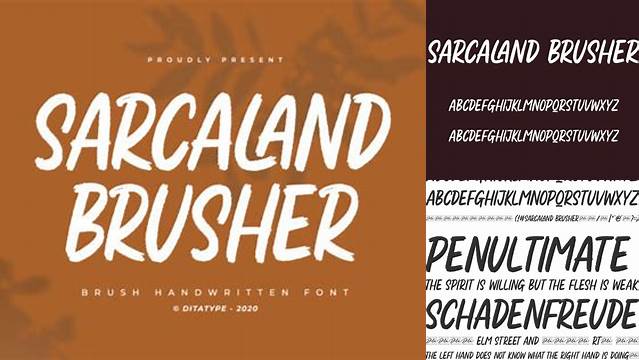
Sarcaland Brusher Font Free: Your Guide To A Stylish Brush Font
Hey guys! Today, we're diving headfirst into the world of typography and uncovering a real gem: the Sarcaland Brusher font free. This isn't just any font; it's a versatile, stylish brush font that can inject personality and flair into any design project. Whether you're a seasoned graphic designer, a budding entrepreneur, or just someone who loves to get creative, understanding and utilizing the Sarcaland Brusher font can be a game-changer. Let's break down everything you need to know, from its key features and where to find it, to how to use it effectively in your projects. We'll cover all the bases so you can start crafting stunning visuals in no time!
What is the Sarcaland Brusher Font?
So, what exactly makes the Sarcaland Brusher font so special? Well, at its core, it's a brush font, meaning it mimics the look of hand-painted or hand-lettered strokes. This gives it a raw, authentic, and often energetic feel that's perfect for projects that need a touch of personality. Think of it as the digital equivalent of picking up a paintbrush and letting loose on a canvas. The Sarcaland Brusher font captures that same spirit, but with the convenience and flexibility of a digital font. It's designed to be bold and impactful, making it ideal for headlines, titles, logos, and any design element where you want to grab attention. The font typically features a slightly rough or textured appearance, which adds to its handmade charm and prevents it from looking overly polished or generic. This distinct characteristic allows it to stand out from the crowd of more traditional fonts, lending a unique aesthetic to your designs. When you use the Sarcaland Brusher font, you're essentially bringing a handcrafted feel to your digital projects, making them feel more personal and engaging. Its versatility means it can be used in a wide range of applications, from websites and social media graphics to print materials like posters and flyers.
One of the main advantages of using a brush font like Sarcaland Brusher is its ability to convey a sense of creativity and artistry. It's a great choice if you want to evoke emotions or connect with your audience on a more personal level. Whether you're working on a branding project for a small business, creating promotional materials for an event, or just experimenting with some personal art, the Sarcaland Brusher font free download can become a valuable asset. The key lies in choosing the right context and ensuring that the font complements your overall design. When used correctly, it can elevate your designs and leave a lasting impression on your audience. It’s important to remember that using the right font can significantly influence how your message is received. By choosing a font like Sarcaland Brusher, you’re not just selecting a typeface; you’re also choosing a style that speaks volumes.
Let's delve into the nitty-gritty of what makes the Sarcaland Brusher font so appealing. First off, its hand-drawn aesthetic is a major draw. This isn't a perfectly symmetrical or mechanically produced font; it has the imperfections and slight variations that give it an authentic, human touch. This unique characteristic is what makes it stand out in a sea of more generic fonts. The textured appearance of the strokes adds to its visual appeal, creating a tactile sensation that pulls the viewer in. It’s as if each letter has its own story to tell. The font often features a bold weight, ensuring that it commands attention. It's designed to be seen and read clearly, even at larger sizes, making it ideal for headlines, titles, and other prominent text elements. This boldness helps to immediately capture the eye, making your message pop. The Sarcaland Brusher font also offers a high degree of readability. Despite its brush-stroke style, the letters are designed to be easily recognizable. This balance is essential to ensuring that the font is not only visually appealing but also functional. You want people to be able to read what you're writing without a struggle.
Another notable feature is its versatility. While it works exceptionally well for headlines and titles, the Sarcaland Brusher font can also be adapted for shorter blocks of text, depending on the context. It is perfect for a variety of design projects, from logos and branding to social media posts and website graphics. Whether you are working on a project that needs a touch of casual elegance, or an informal feel, this font delivers. It also typically includes a variety of characters and glyphs, providing flexibility in creating diverse designs. This often includes alternate letters, ligatures, and special characters. The inclusion of these extras increases the font's expressive capabilities, allowing designers to customize and refine the final look of their work. This level of customization makes it suitable for almost any design need. These elements are often included in a well-designed brush font to enhance the overall design and creative possibilities. These elements enhance the overall design and creative possibilities. Remember, good design is all about attention to detail, and the Sarcaland Brusher font allows you to focus on these small refinements.
How to Use the Sarcaland Brusher Font Effectively
Now, let's get down to the practical stuff: how to use the Sarcaland Brusher font effectively. First off, consider the context. This font isn’t a one-size-fits-all solution. It's best suited for projects that benefit from a casual, handcrafted look. It's perfect for things like logos, headers, social media graphics, event posters, and any design that needs to stand out with a touch of personality. Think about your audience and the message you want to convey. This is where the impact of the Sarcaland Brusher font comes into play. It creates a specific style, setting the tone and atmosphere for your project. A good tip is to make use of a style guide and maintain consistency throughout your design process. The font’s bold style and character make it ideal for headers and titles. It can add emphasis, and it adds a visually interesting focal point. Choose the font size wisely. It works best when it's large enough to be easily readable. Avoid using it for large blocks of text, as its decorative nature can make it difficult to read at smaller sizes. You should always prioritize readability.
When pairing it with other fonts, find a good balance. Pair the Sarcaland Brusher font with a more neutral, clean sans-serif or serif font for body text. This contrast will create visual interest and ensure that your content is easily readable. The contrast between a bold, handwritten font and a clear, simple font highlights the beauty of both. Think about the color palette. The font's style can easily be integrated into the overall aesthetic of a design. It can work perfectly with vibrant colors, pastels, or even monochrome schemes. Also, keep in mind spacing and kerning. Ensure your text is legible by adjusting the letter spacing and kerning to suit the font’s specific characteristics. A good rule of thumb is to keep the spacing consistent to avoid the text appearing too cluttered. Finally, always experiment with different applications. Try out different layouts and design elements to see how the Sarcaland Brusher font works best for your project. The best way to learn is by doing. The ability to download the Sarcaland Brusher font gives you the freedom to try out different design concepts without making significant investments. The more you practice, the better you will understand this font.
Alright, that's a wrap! Hopefully, you’ve got a great grasp of the Sarcaland Brusher font free, including its key features, how to find it, and how to use it effectively. Remember, the key to successful design is experimenting and finding what works best for your specific needs. So go out there, download the font, and start creating some awesome visuals. Don't be afraid to get creative and have fun with it! With a little practice and some creativity, you'll be amazed at what you can achieve. So go out there, download the font, and start creating some awesome visuals. Happy designing, guys!